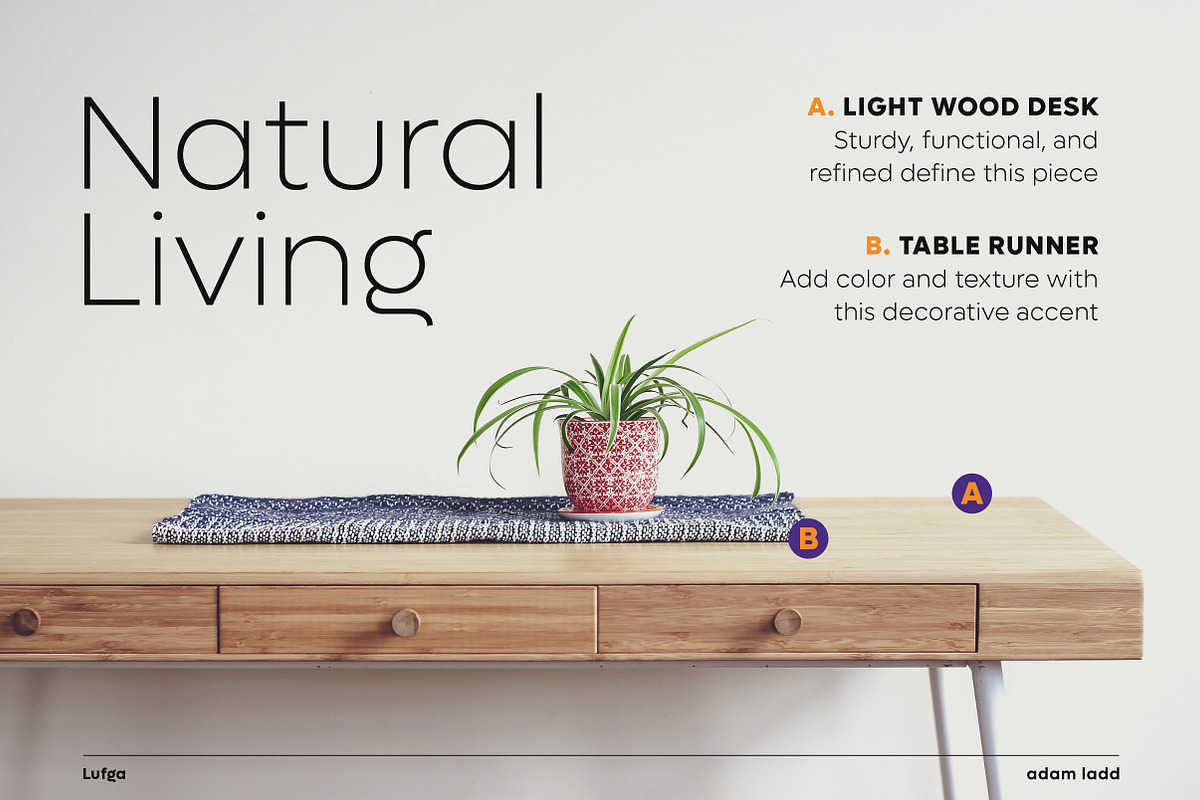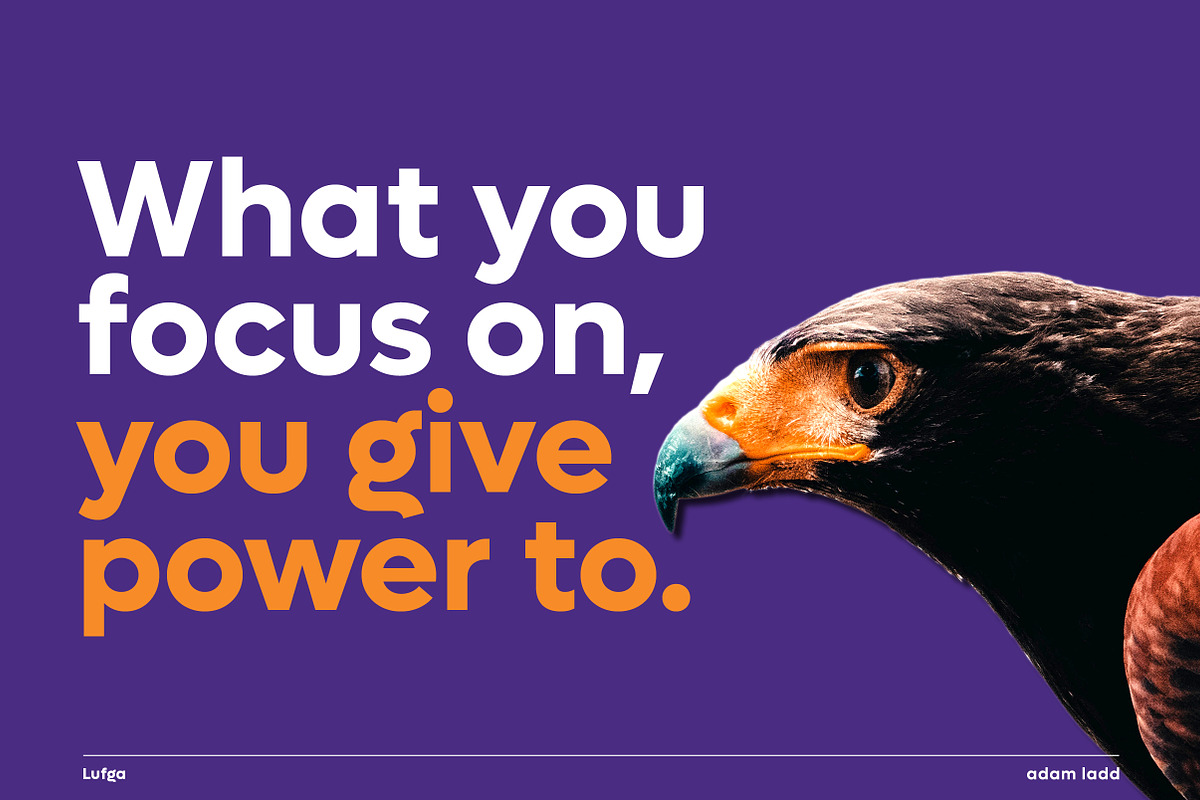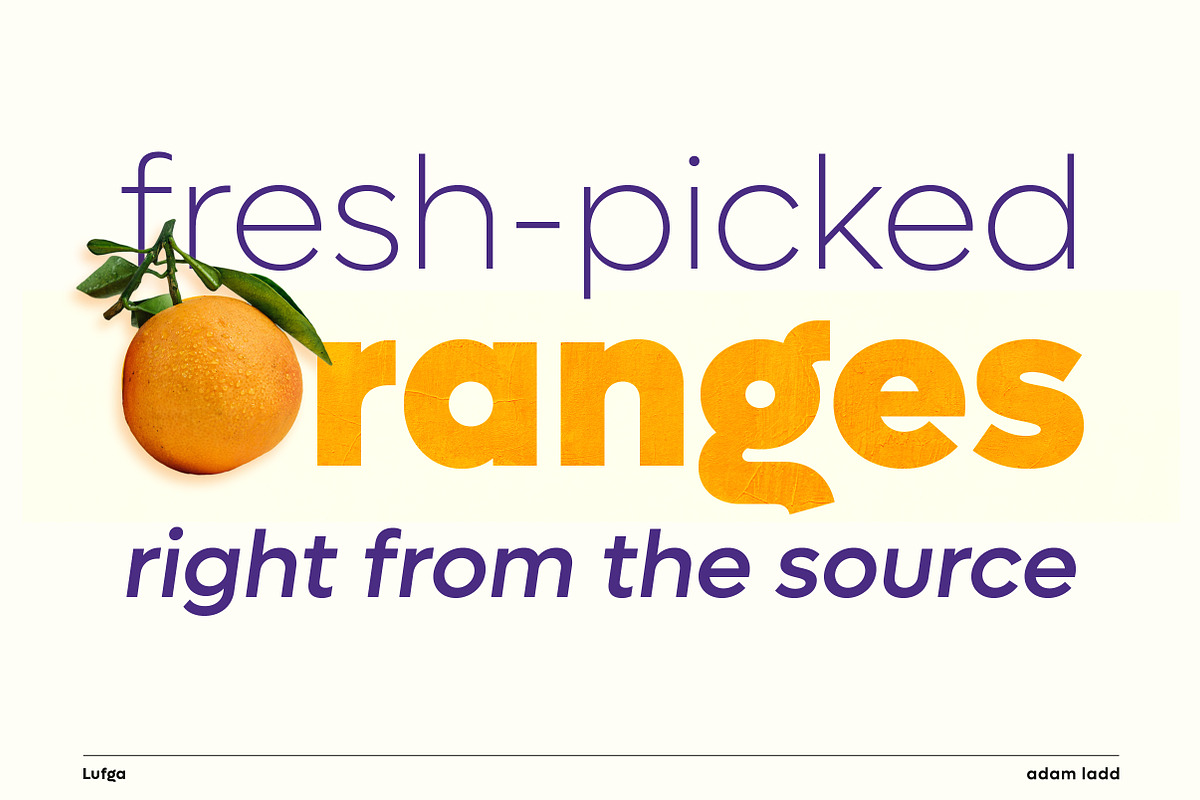
Lufga Font
Lufga Font is a geometric sans serif font family with unique characters for a touch of distinction. Simple yet sophisticated, this typeface design gives a clean and modern appearance while carrying some almost retro tones.
Most notably, the lowercase g and u make it recognizable for your branding applications, and there are also stylistic alternates to help give a little different presentation when needed.
With a minimal design, low contrast, large x-height, and thin through black weights (with italics), Lufga is well suited as both a workhorse text and display font for branding, advertising, packaging, headlines, magazines, websites, logo designs, and more.
With over 600 glyphs, this font has extensive multilingual Latin language support (100+ languages) for Western, Central, and South Eastern European. 18 fonts (OpenType format) included in your purchase. Thin through black with italics.
• Stylistic alternates (G, a, g, u, w)
• Case-sensitive punctuation for All Caps
• Arrow icons
• Fractions, numerators, denominators
• Superscript, subscript